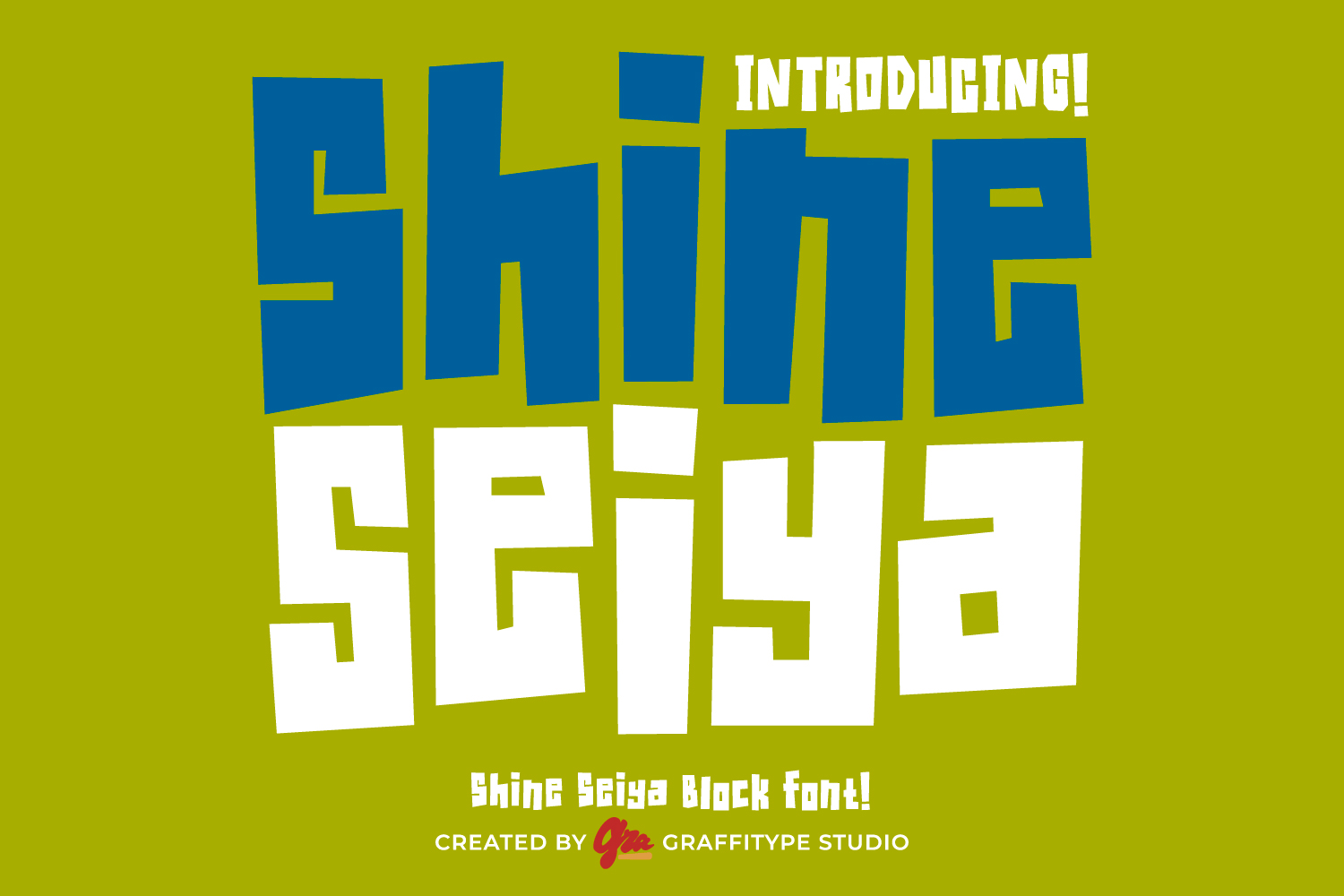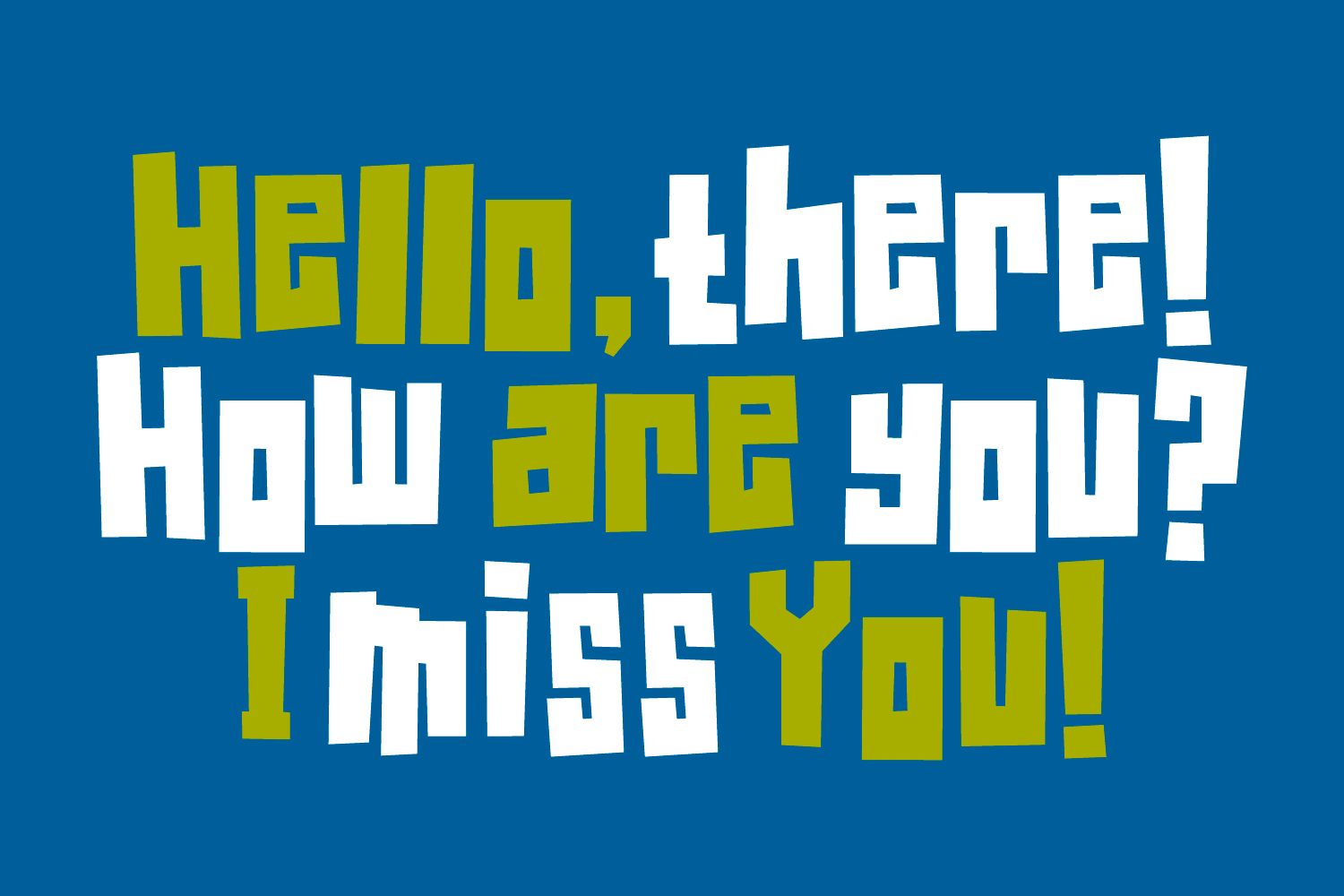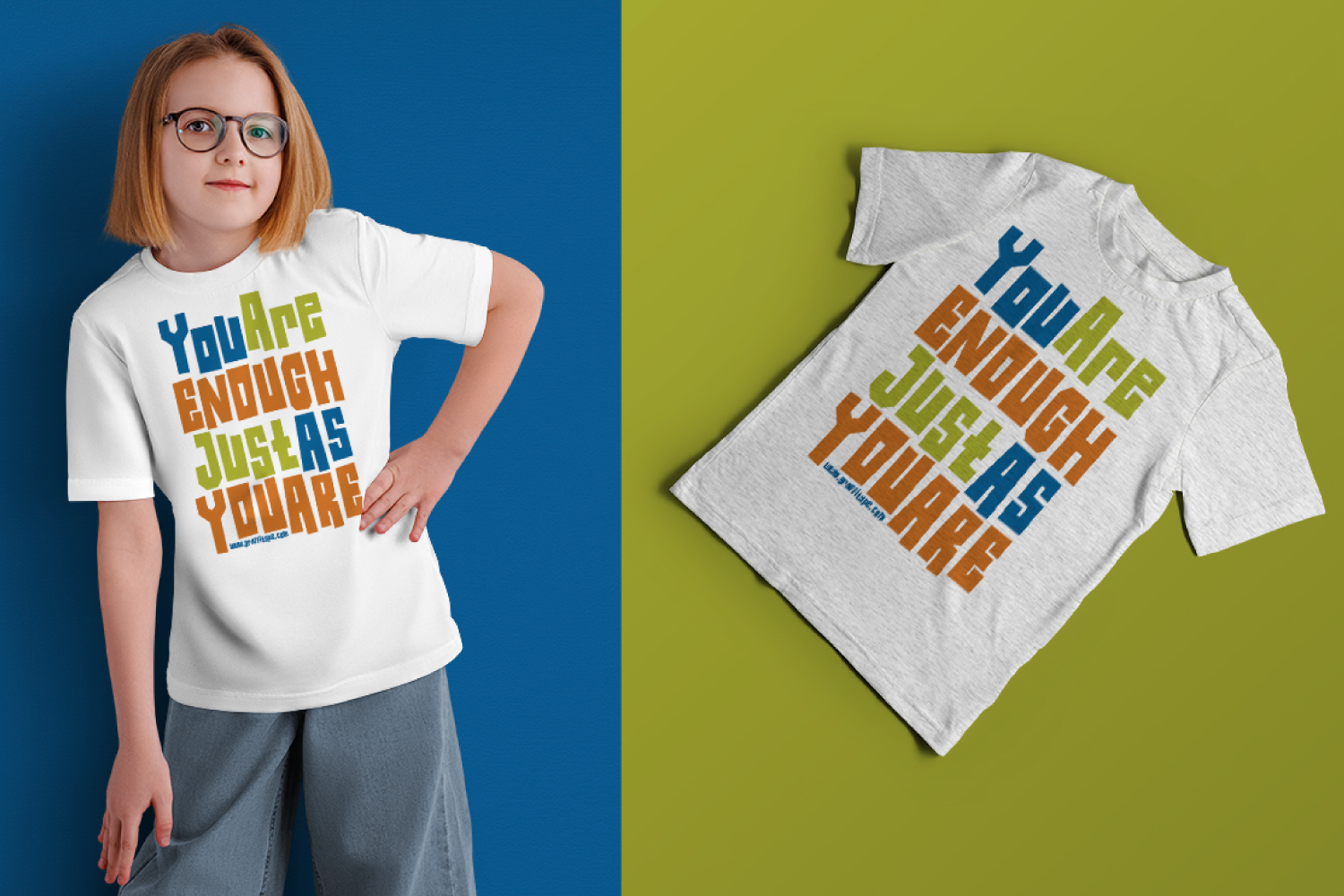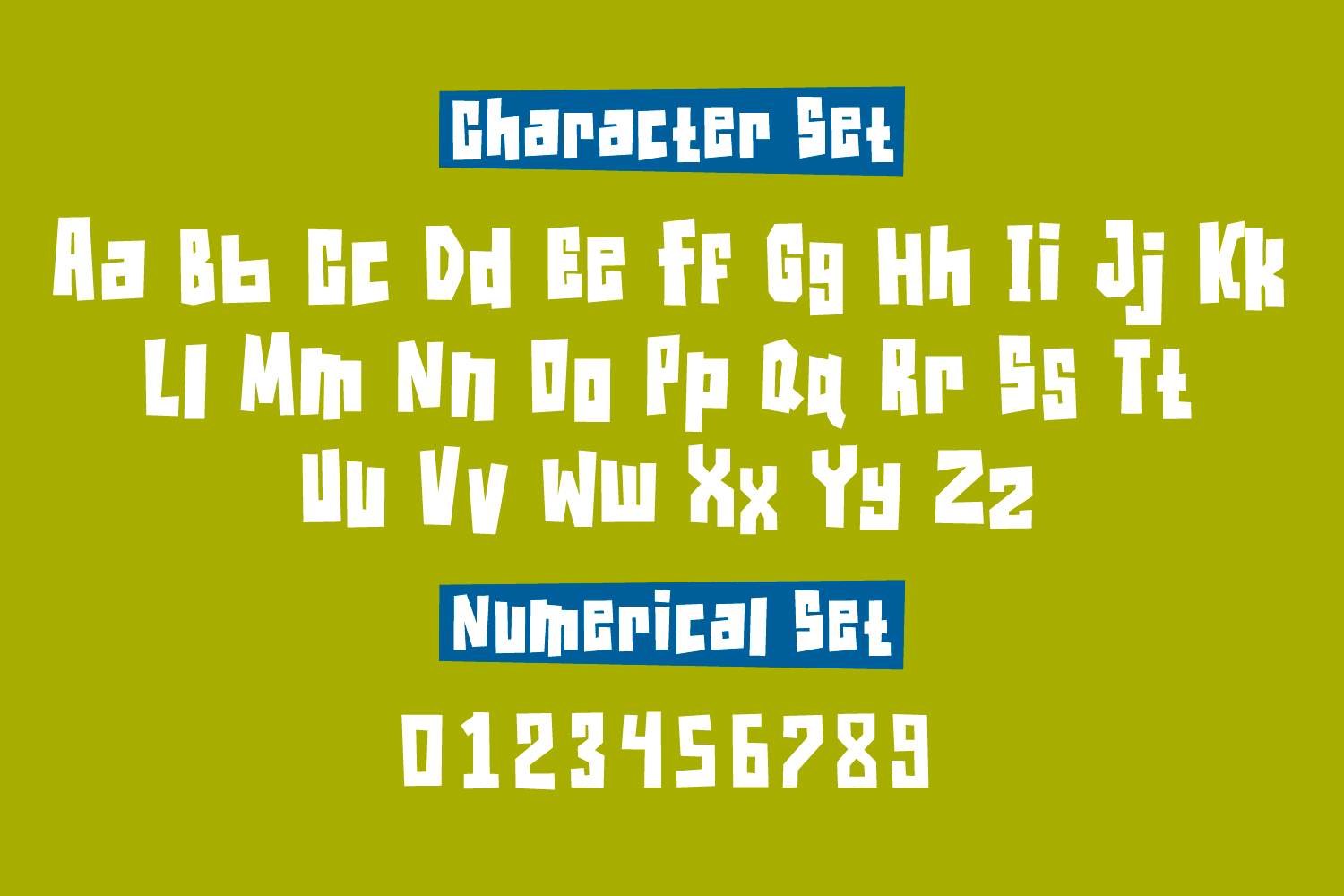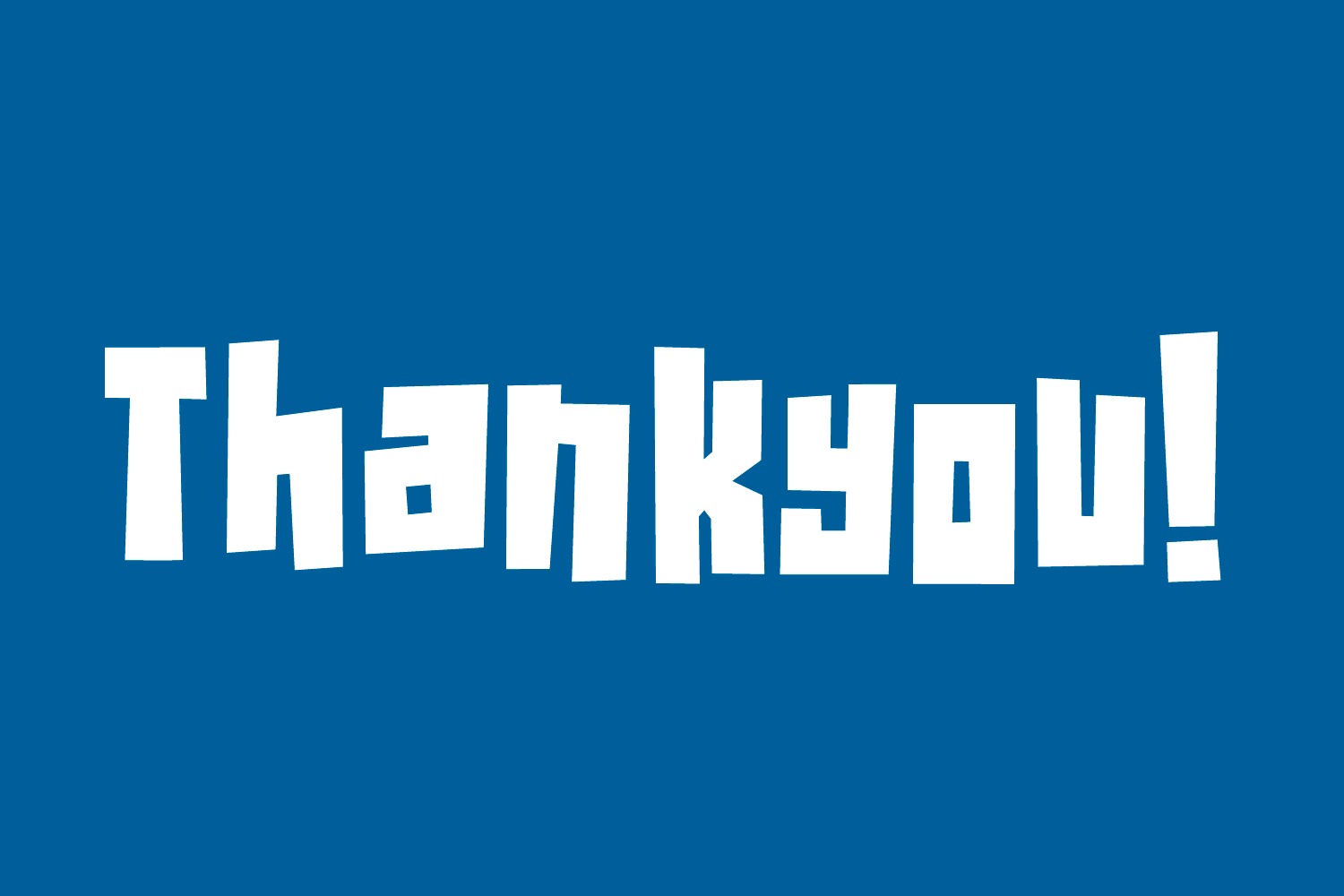
Shine Seiya
Shine Seiya is a commanding display typeface that blends sharp geometry with a futuristic edge. Its bold, boxy letterforms are constructed with unwavering precision, giving it a distinctly modern and powerful presence. Each character stands tall with strong verticals and squared proportions, making Shine Seiya an ideal choice for titles, headlines, logos, and editorial design that needs to make a bold statement. This typeface doesn’t whisper — it speaks with clarity, structure, and strength.
Despite its rigid form, Shine Seiya carries a refined sense of balance, allowing it to feel both aggressive and sophisticated. Its clean, minimalist shapes are perfect for contemporary layouts, tech-themed visuals, or any creative project that benefits from a typeface with confidence and control. Whether used on posters, album covers, or branding suites, Shine Seiya delivers impact with style.